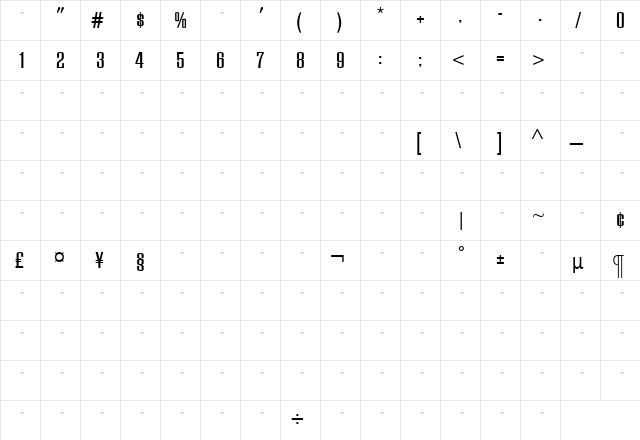
EuropaGrotesqueMediumTab Roman
Design Context for EuropaGrotesqueMediumTab Typeface
EuropaGrotesqueMediumTab takes a measured approach to typography — its balanced proportions and neutral character make it a reliable workhorse for both digital and print work.